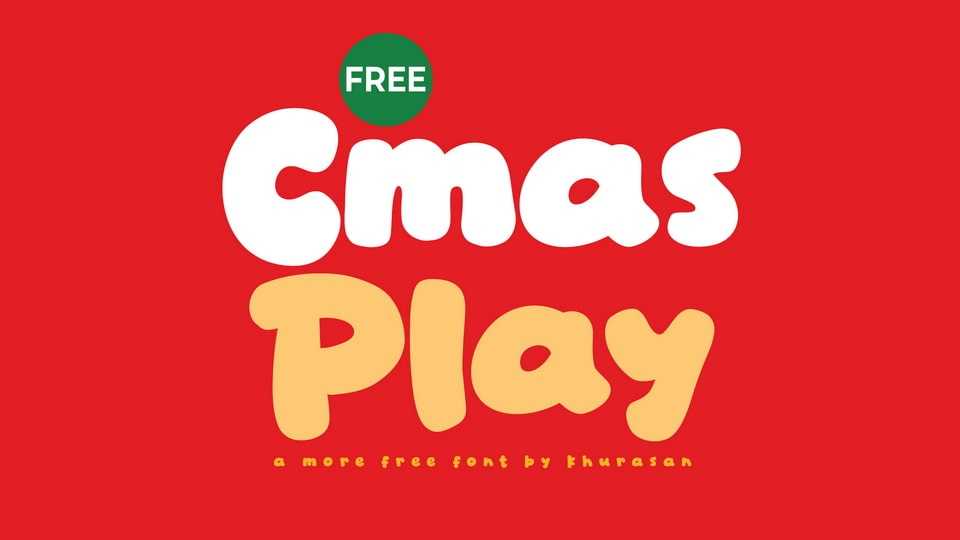
Download Cmas Play font a fun, bubbly display typeface designed to bring warmth and cheer to your holiday-themed projects with its soft, chunky curves and joyful hand-drawn personality.